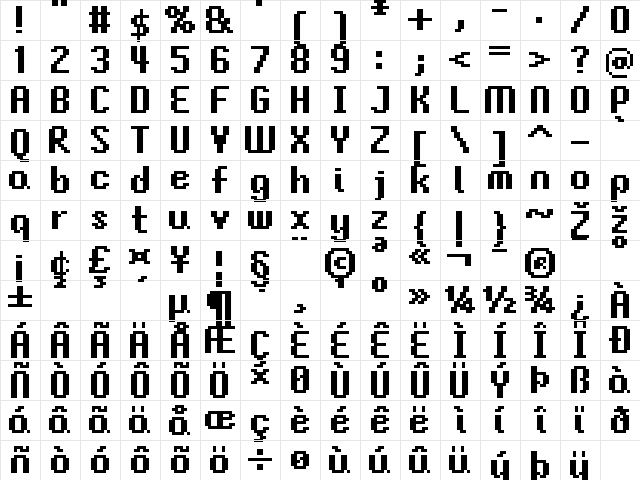
FFF Gardencity Bold Regular
Design Context for FFF Gardencity Bold Typeface
FFF Gardencity Bold takes a measured approach to typography — its balanced proportions and neutral character make it a reliable workhorse for both digital and print work. The heavy weight commands attention and anchors typographic hierarchies.